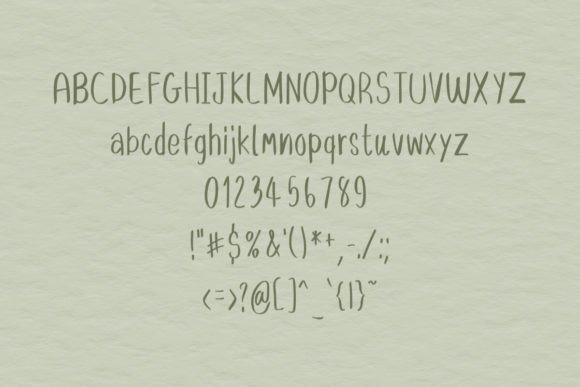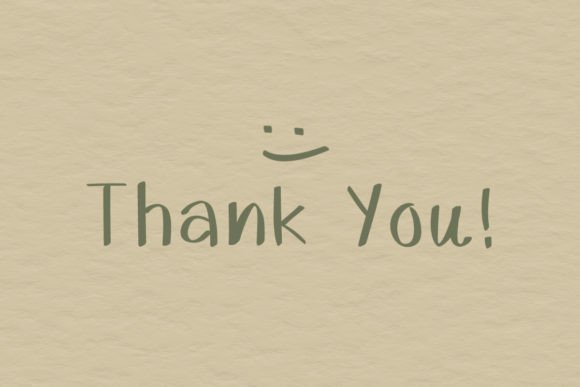
Introduction to Pattio Font
Remember that moment when you’re working on a creative project and you’re struggling to find the perfect font to capture the essence of your idea? You scroll through font libraries, browsing through rows of generic fonts, until you stumble upon something that sparks your imagination. For designers, discovering the perfect font can be a game-changer. It’s the difference between a dull, uninspired design and a vibrant, eye-catching masterpiece.
Enter Pattio Font, a whimsical brush typeface that exudes playfulness and creativity. With its spontaneous strokes and unique character, this font adds a touch of magic to your designs. Whether you’re working on a poster, a title, or an artistic project, Pattio Font lets your text dance with a carefree spirit.
Key Features of Pattio Font
- High-quality design resource suitable for creative projects, including logos, branding, and graphics.
- Includes multiple font styles and weights, providing versatility for different design applications.
- Designed with a modern and sleek aesthetic, perfect for contemporary designs and branding.
Honest Review: Pattio Font
One of the things that works well with Pattio Font is its versatility. It can be used for a wide range of design projects, from digital to print. The font is also highly customizable, allowing designers to easily adjust the size, color, and style to fit their needs.
Here are some of the key features that I like about Pattio Font:
- ✨ High-quality design that looks great on a transparent background
- ✨ Highly customizable, making it perfect for creative projects
- ⚠️ Limited font sizes available (although this is easily fixed with customization)
- ⚠️ Not suitable for very small text sizes
Pattio Font
Pattio Font is a versatile and creative design resource ideal for various projects. This high-quality font features a transparent background, making it perfect for overlaying text onto images or other design elements.
Tips for Getting the Most Out of Pattio Font
Experiment with different font sizes and colors to achieve the desired effect. You can also combine Pattio Font with other design elements to create a unique and eye-catching design.
Pattio Font is ideal for creative projects such as blog posts, social media graphics, and product descriptions. Its transparent background makes it perfect for overlaying text onto images or other design elements.